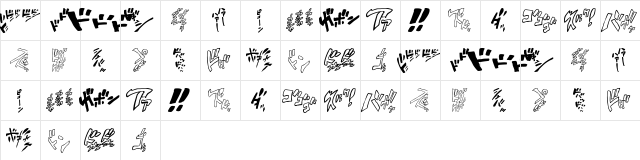
Jojomix Regular
Design Context for Jojomix Typeface
Jojomix is a composed and adaptable typeface that performs quietly and consistently across a wide range of design contexts.